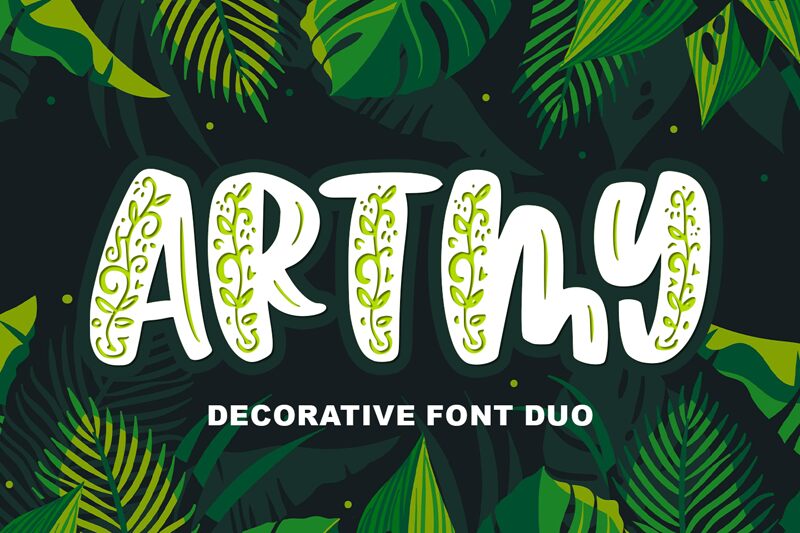
Artmy Solid captures attention with its bold, brush stroke style, showcasing a unique blend of artistry and strength. Designed by Abo Daniel Studio, this striking font stands out due to its weighty and expressive characters that seem to be painted with confidence across any canvas.
Ideal for headlines, logos, posters, and other design projects that demand a powerful visual presence, Artmy Solid brings an energetic flair that can transform ordinary text into extraordinary statements. Its dynamic feel is perfect for creative endeavors seeking to make a distinctive impact.
Artmy Solid